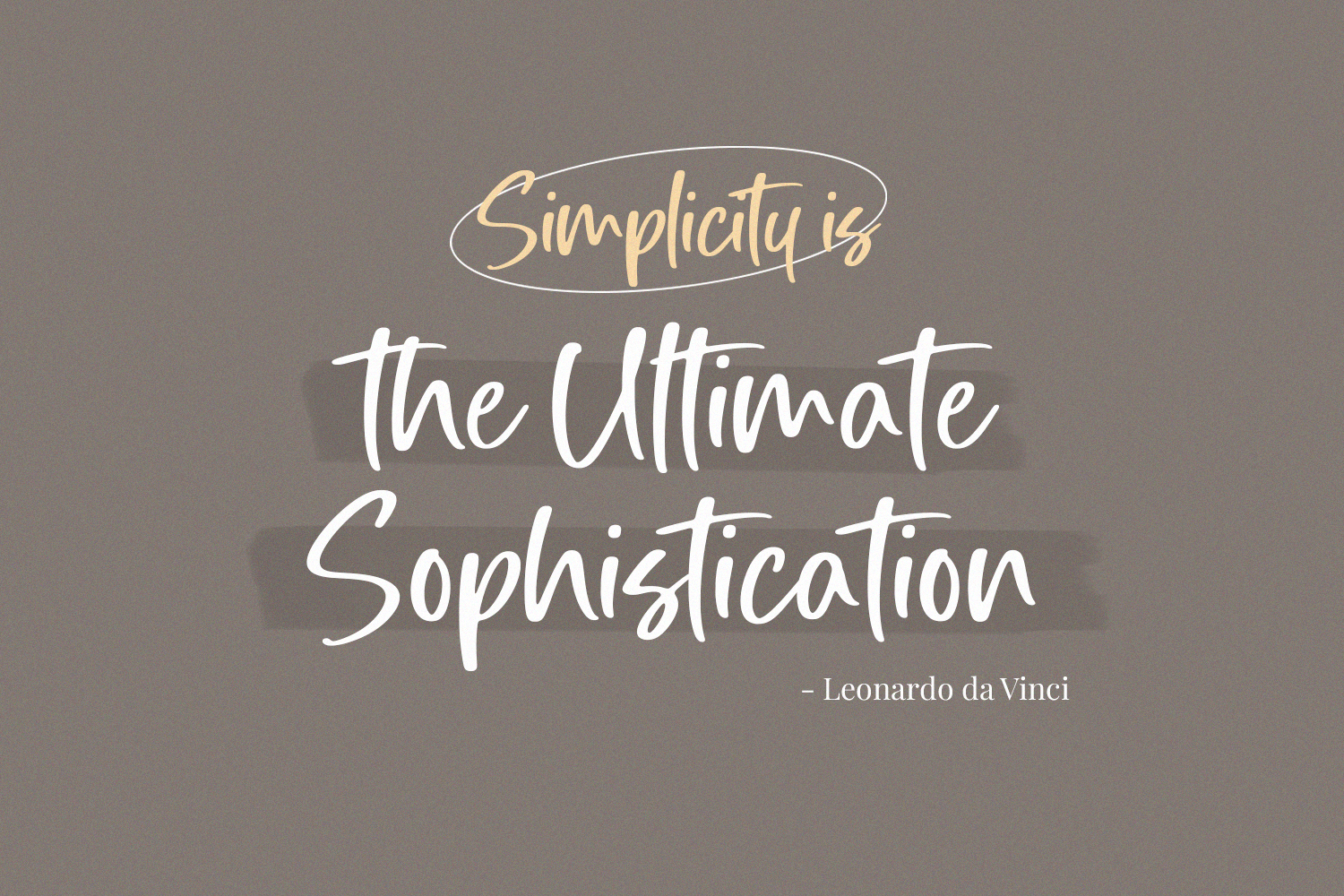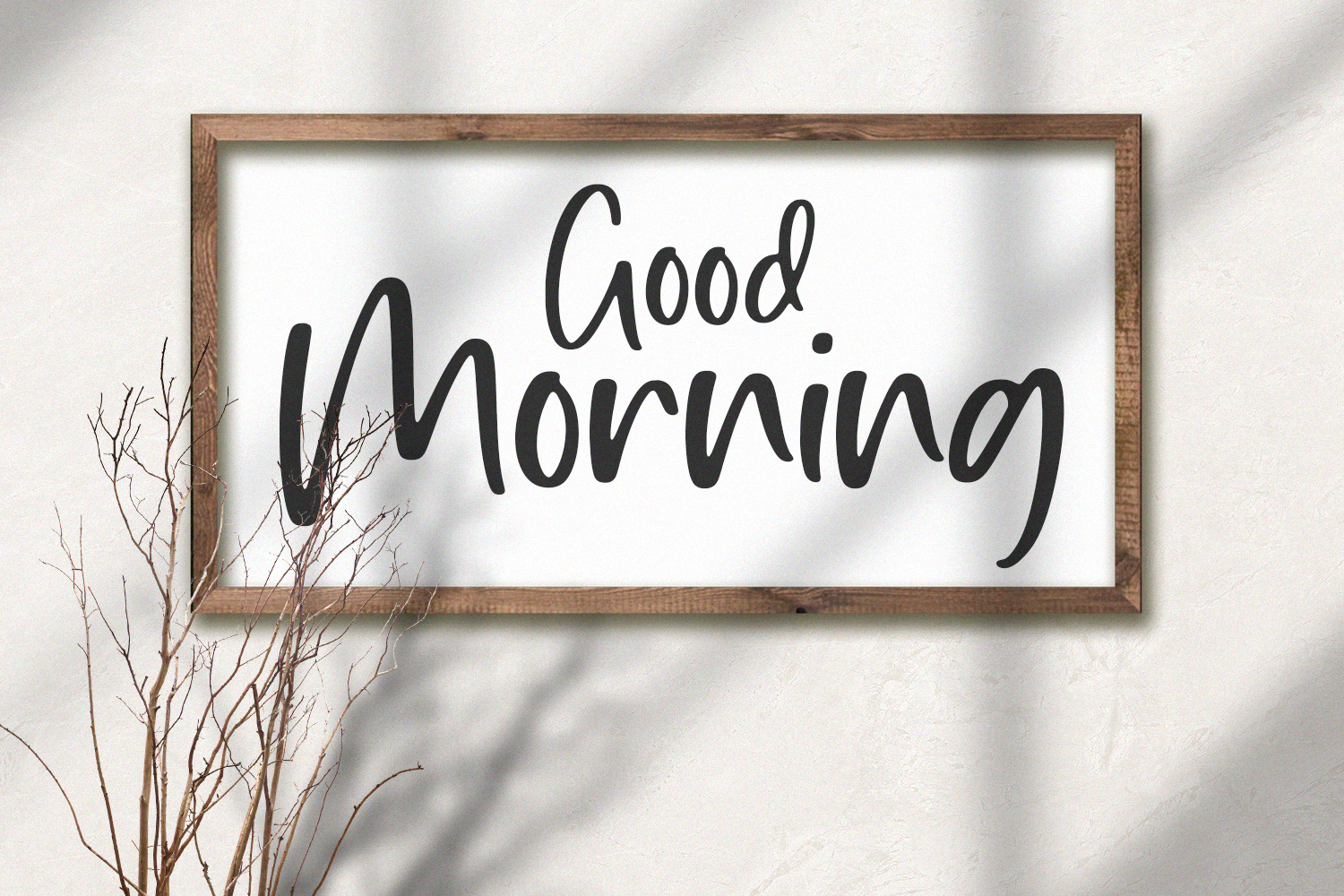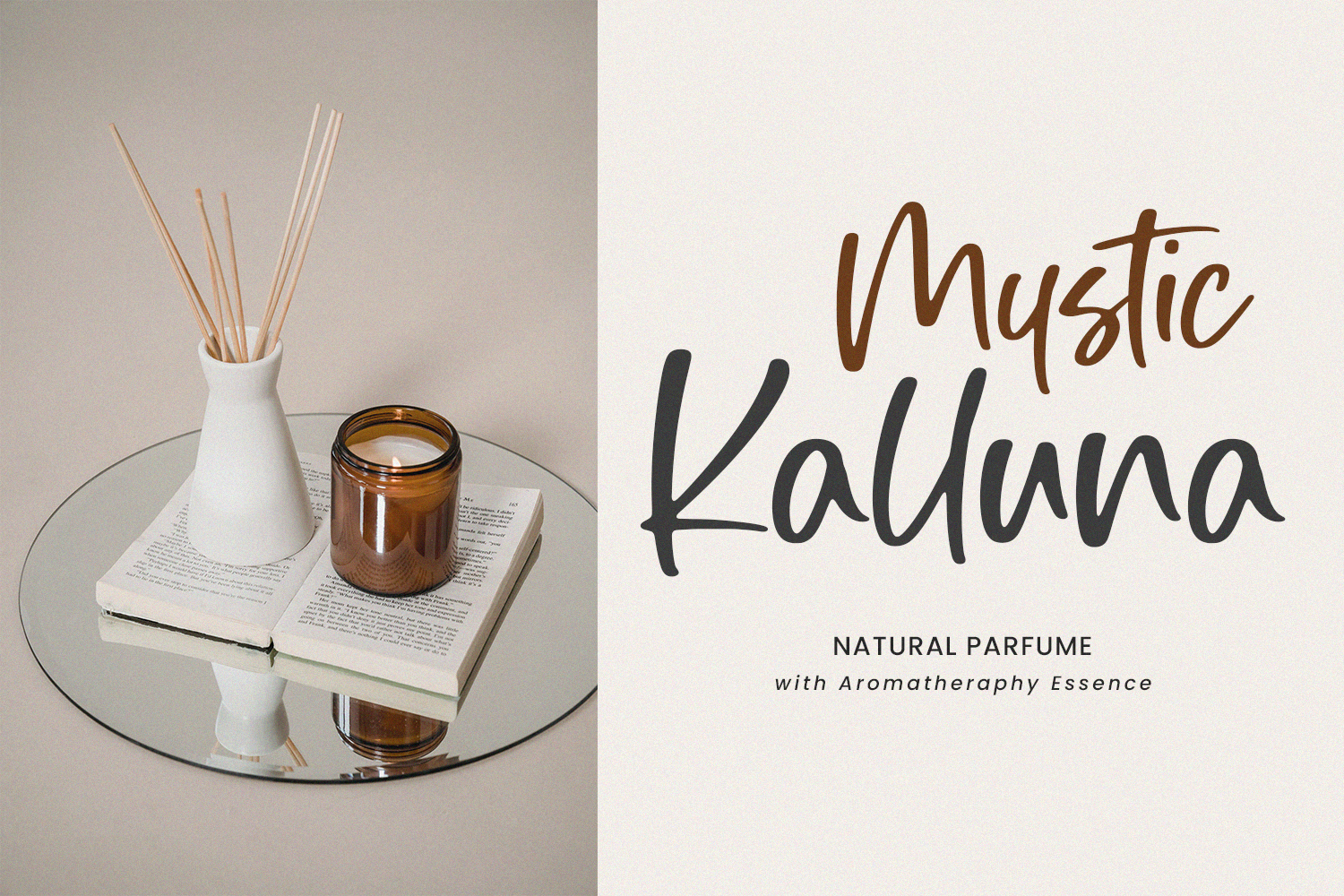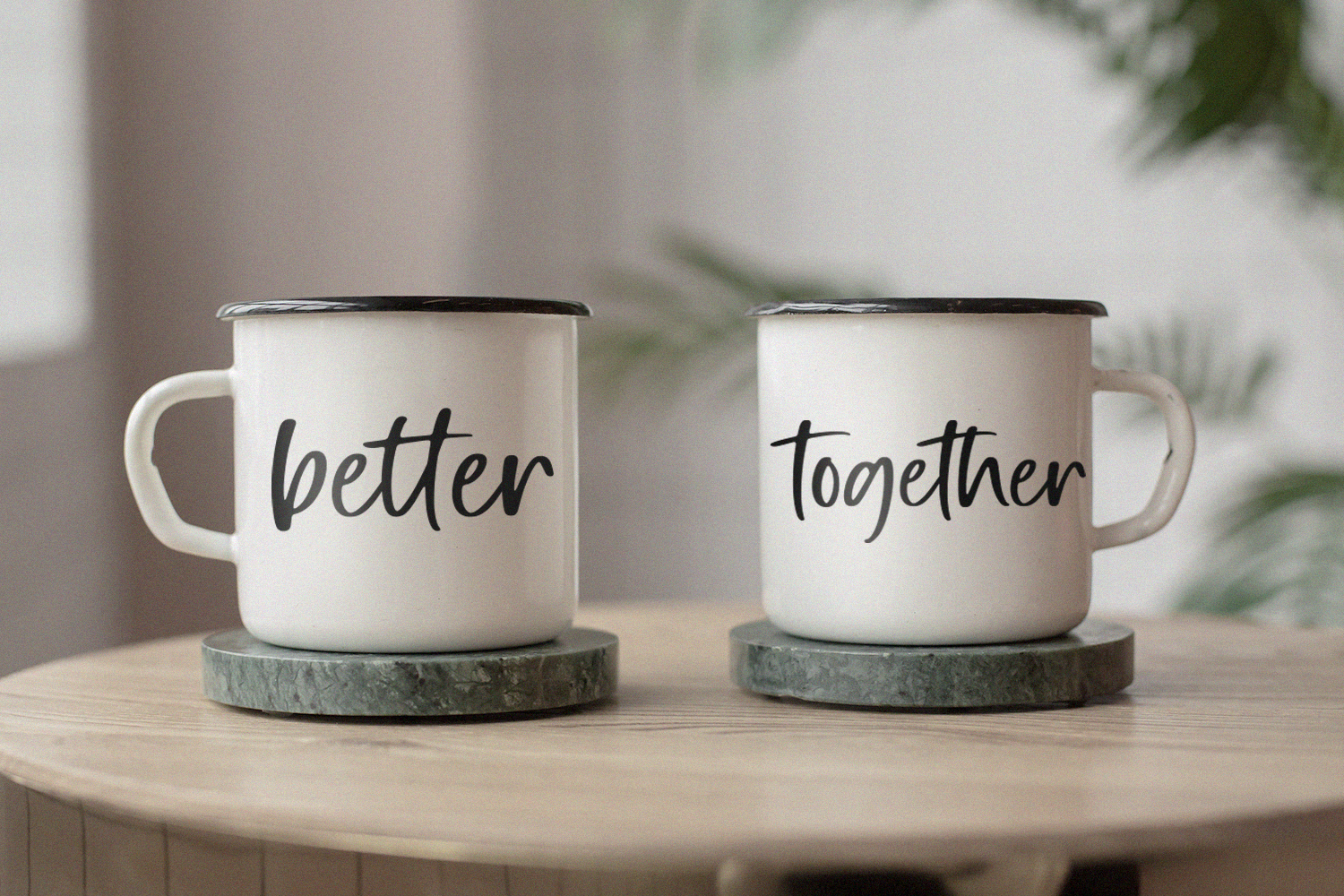
Rightwood Free Font
Introducing Rightwood Free Font, a refined and contemporary calligraphic font that exudes grace and elegance. With its captivating rhythm and flowing lines, this font is designed to enhance your creations and add a touch of sophistication. Whether you’re working on branding projects, invitations, web graphics, cards, or any other creative endeavor, Rightwood Free Font is a versatile choice that will elevate your compositions to a whole new level of beauty. Embrace the beauty of Rightwood Free Font and unlock endless possibilities for creating stunning and classy designs. This free typeface was designed by a talented Timur type. If you like it don’t forget to check out the full version.